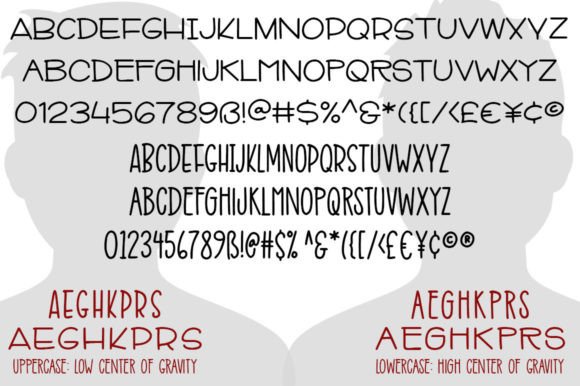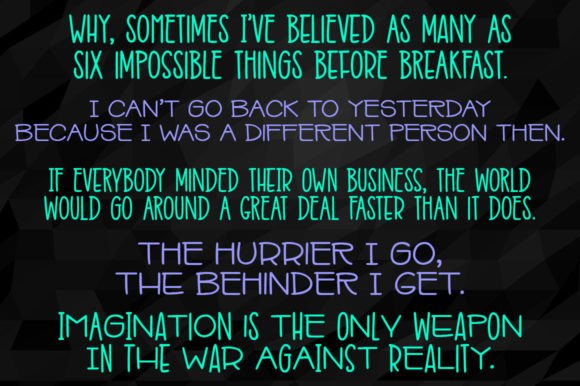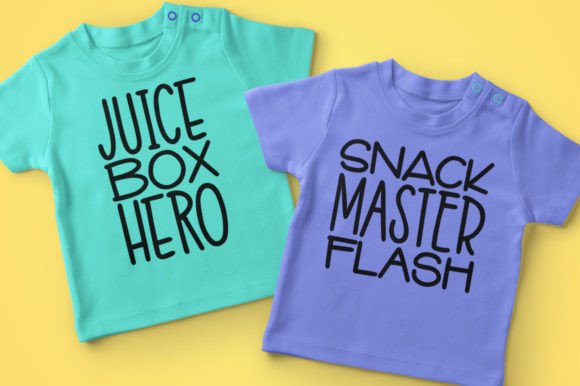
Mr. Stretch & Mr. Stout Font
Allow me to introduce Mr. Stretch and Mr. Stout, a dynamic duo of gallant fonts, both ready to assist you in all your font projects with their distinct personalities and unique charm.
These fonts, written with the same pen, are crafted to complement each other seamlessly. Mr. Stretch, tall and slender, exudes an elegant and elongated vibe. On the other hand, Mr. Stout is short and sturdy, radiating a robust and bold character. While each font stands beautifully on its own, their harmonious relationship allows for creative pairings with a variety of other fonts. For added flair, you can even switch between Mr. Stretch and Mr. Stout within the same word, creating a funky and eye-catching look.
The meticulous design of both fonts includes extensively cleaned-up glyphs to reduce superfluous nodes and points, all while maintaining an authentic hand-written aesthetic. This makes Mr. Stretch and Mr. Stout versatile and well-suited for crafting, printing, cutting, and various other design applications.
Each font—Mr. Stretch and Mr. Stout—comes complete with:
– Two full uppercase sets for each font: one with a high center of gravity for Mr. Stretch and one with a low center for Mr. Stout.
– A comprehensive set of numbers and punctuation marks.
– Over 300 extended Latin characters for robust language support, including special characters such as ß, Æ, æ, Œ, œ, Å, and å.
Whether you choose Mr. Stretch for an elegant touch or Mr. Stout for a bold statement, these fonts are not just tools; they’re your creative companions, ready to elevate your projects with style and personality. Explore the versatility of Mr. Stretch and Mr. Stout in your next design adventure!